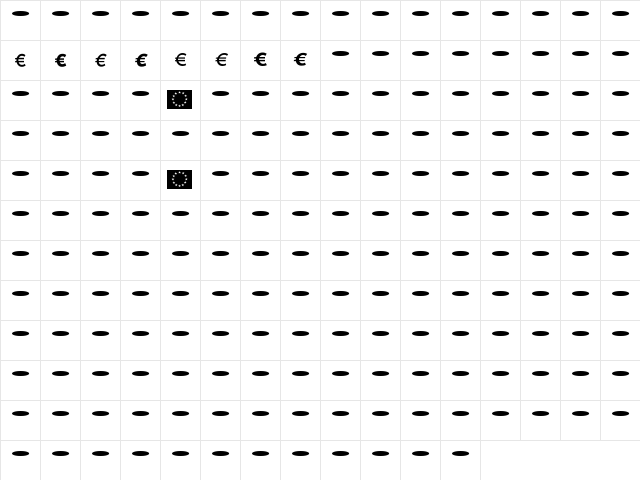
ScalaSans Euro Regular Free Font
ScalaSans Euro Regular
Design Context for ScalaSans Euro
ScalaSans Euro is a composed and adaptable typeface that performs quietly and consistently across a wide range of design contexts.